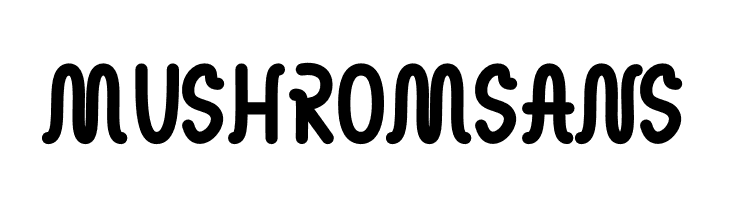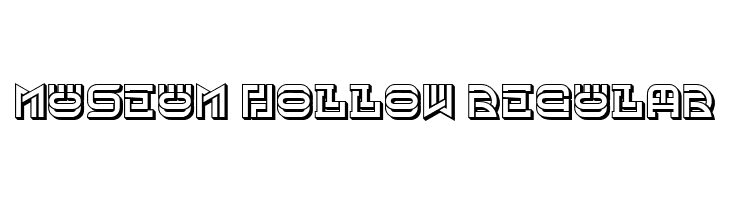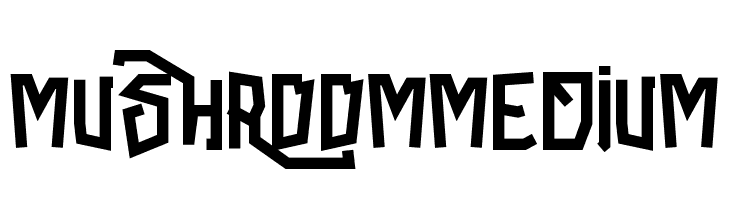
A bold, impactful font with thick strokes and a modern-retro style.
A bold, geometric font with sharp, angular lines and a modern industrial style.
A bold, handwritten font with smooth, flowing strokes and a playful style.
A bold, geometric font with a modern, digital aesthetic.
A bold, distressed font with a rugged, vintage texture.
A bold, distressed font with a rugged, vintage appearance.
A bold, condensed font with strong vertical lines and tight spacing.
A bold, condensed font with strong, uniform strokes and high contrast.
A bold, handwritten font with dynamic strokes and a modern, artistic flair.